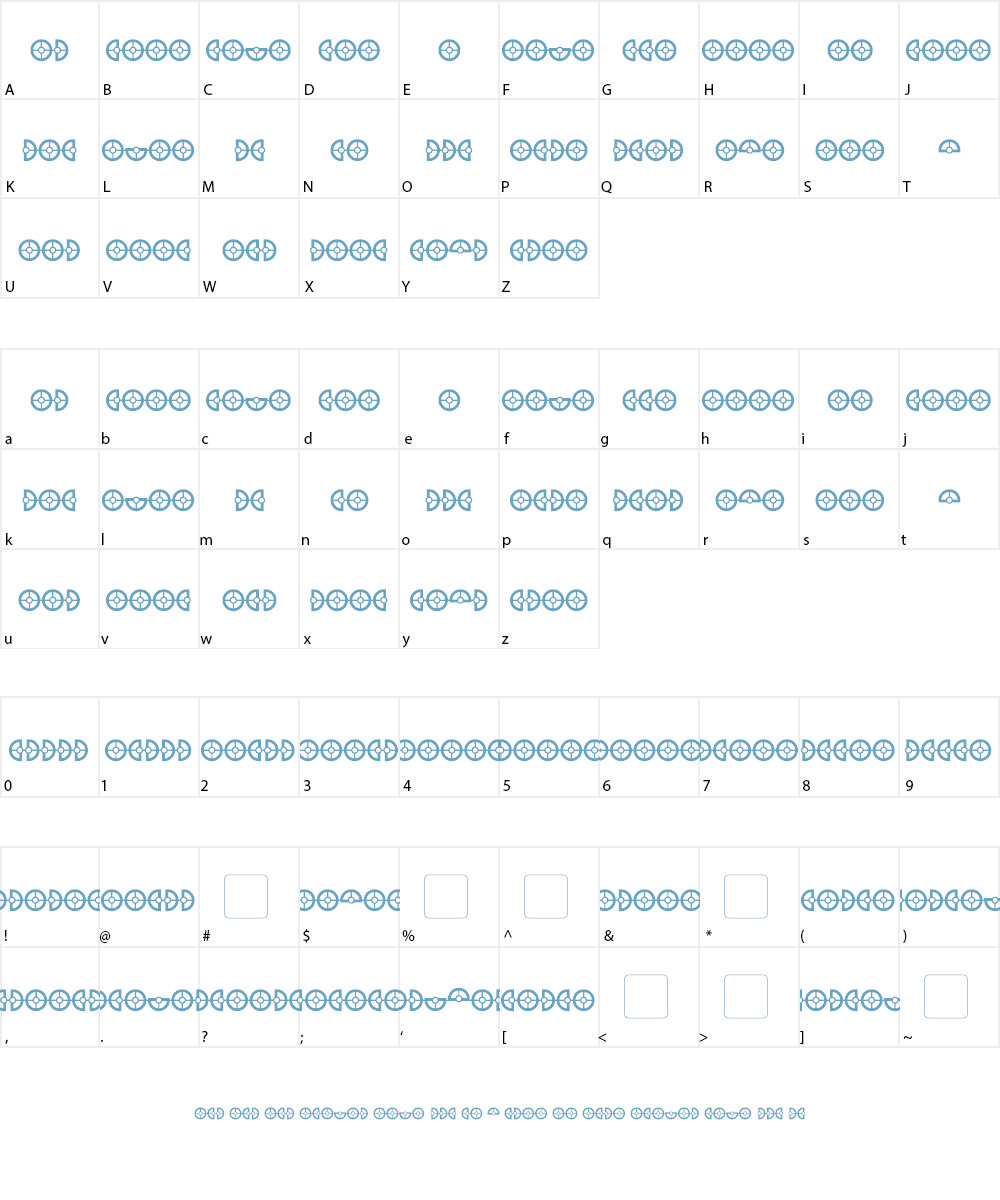
This symbol face is a stylized version of Jim Sorensen's "Optical Code" from the Transformers: Allspark Almanac. Includes all canon characters and also includes an extended punctuation and character set.